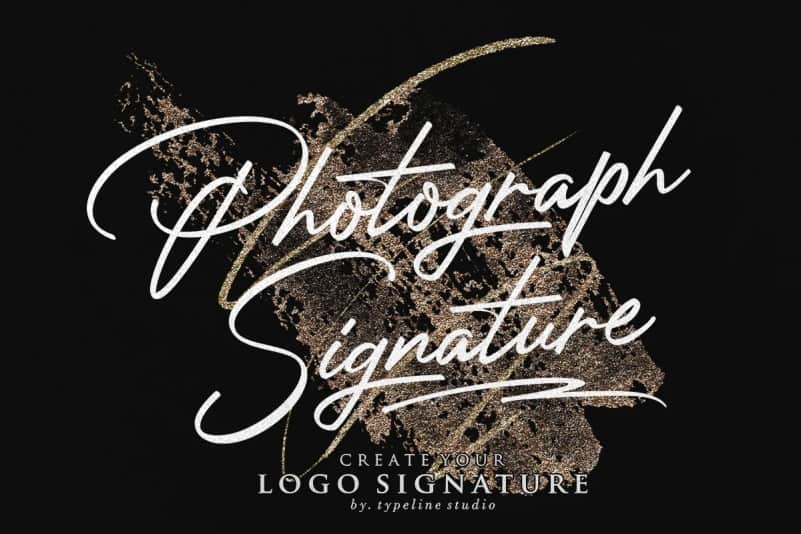
Photograph Signature Logo Font
Photograph Signature Logo Font – A new signature font created by Typeline Studio with a smooth shape and luxury calligraphic style. This font with new style, this font will perfect for many different project ex: quotes, logo, blog header, poster, banding, fashion, apparel, letter, invitation, stationery, etc…